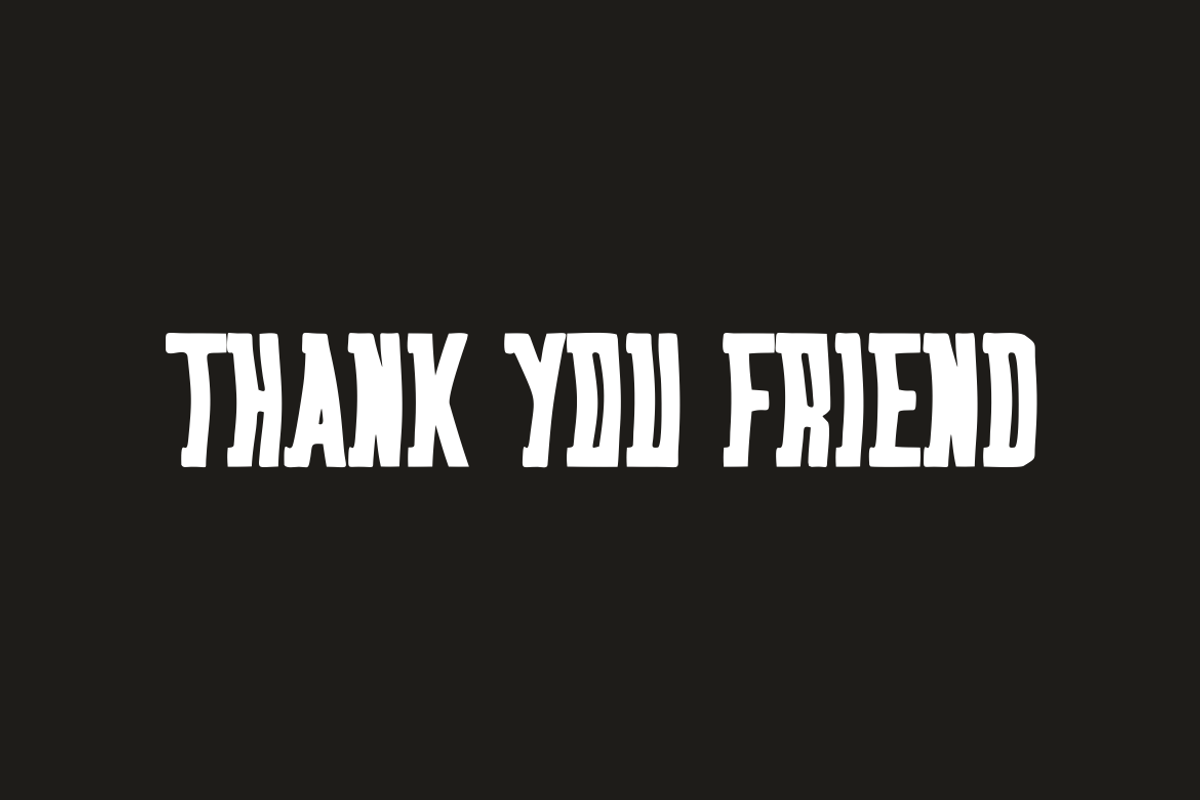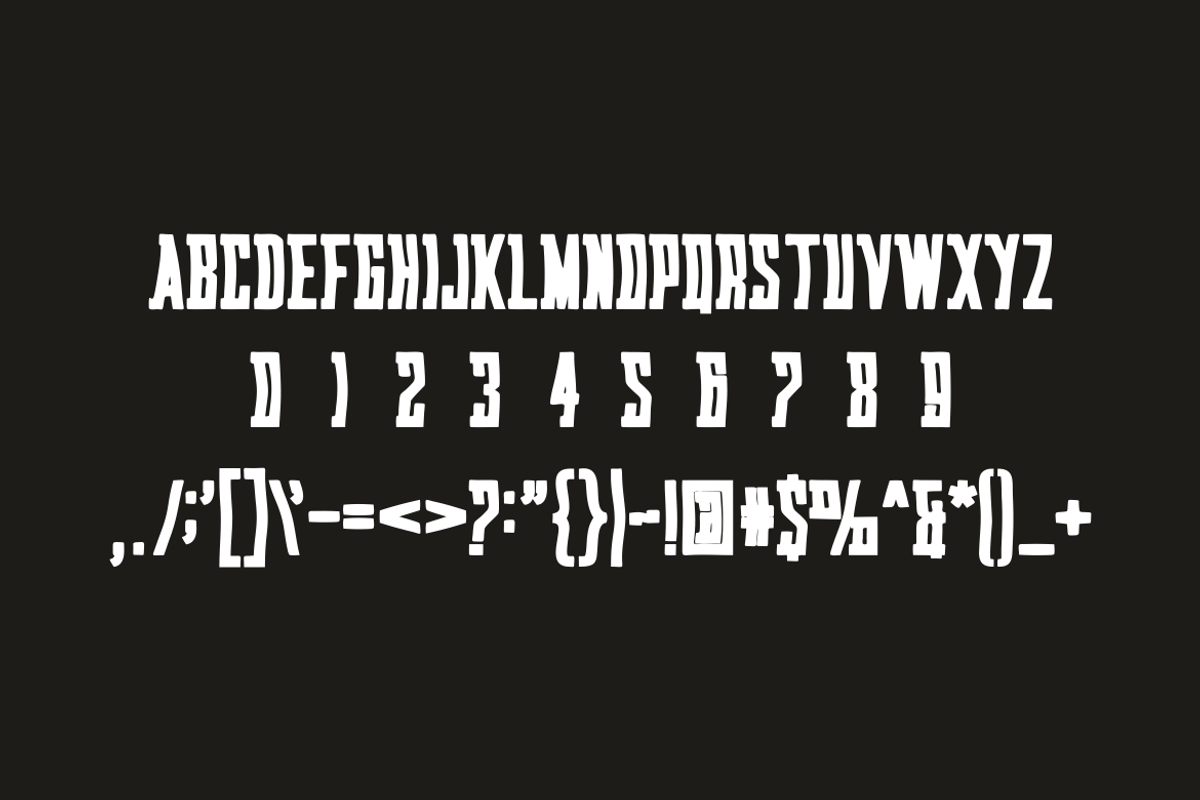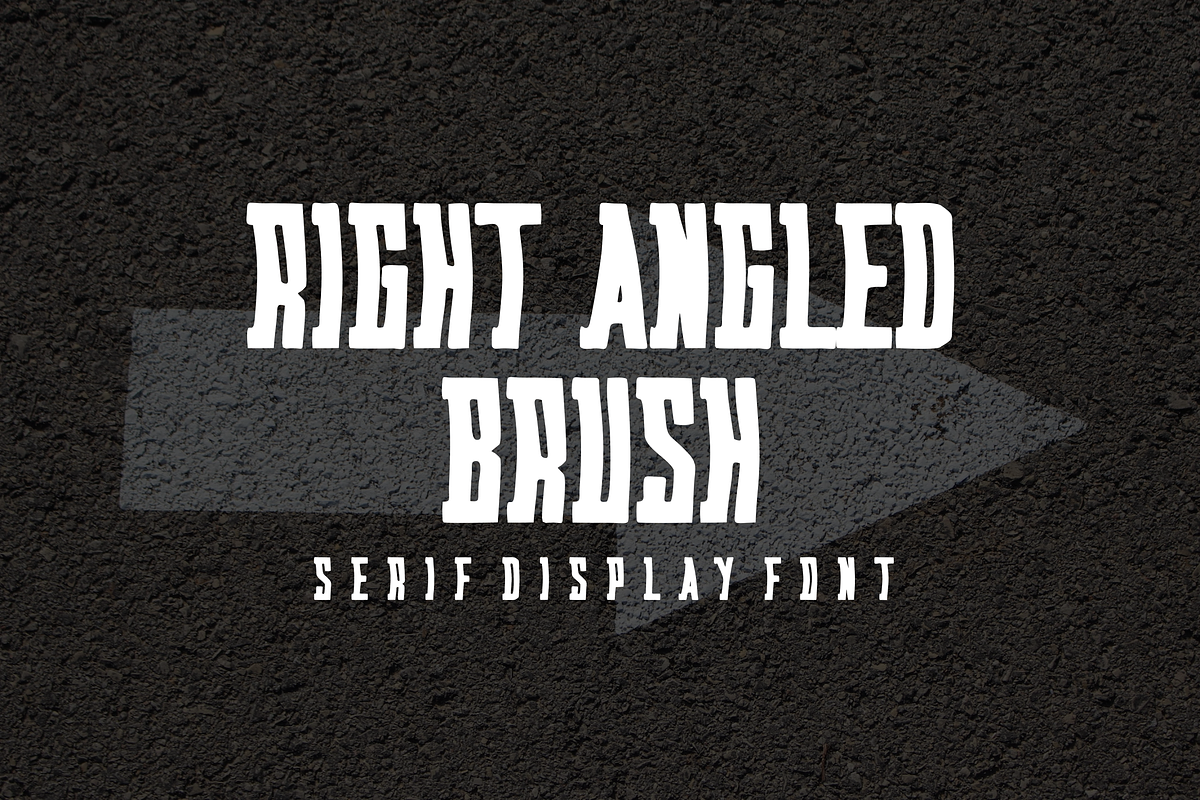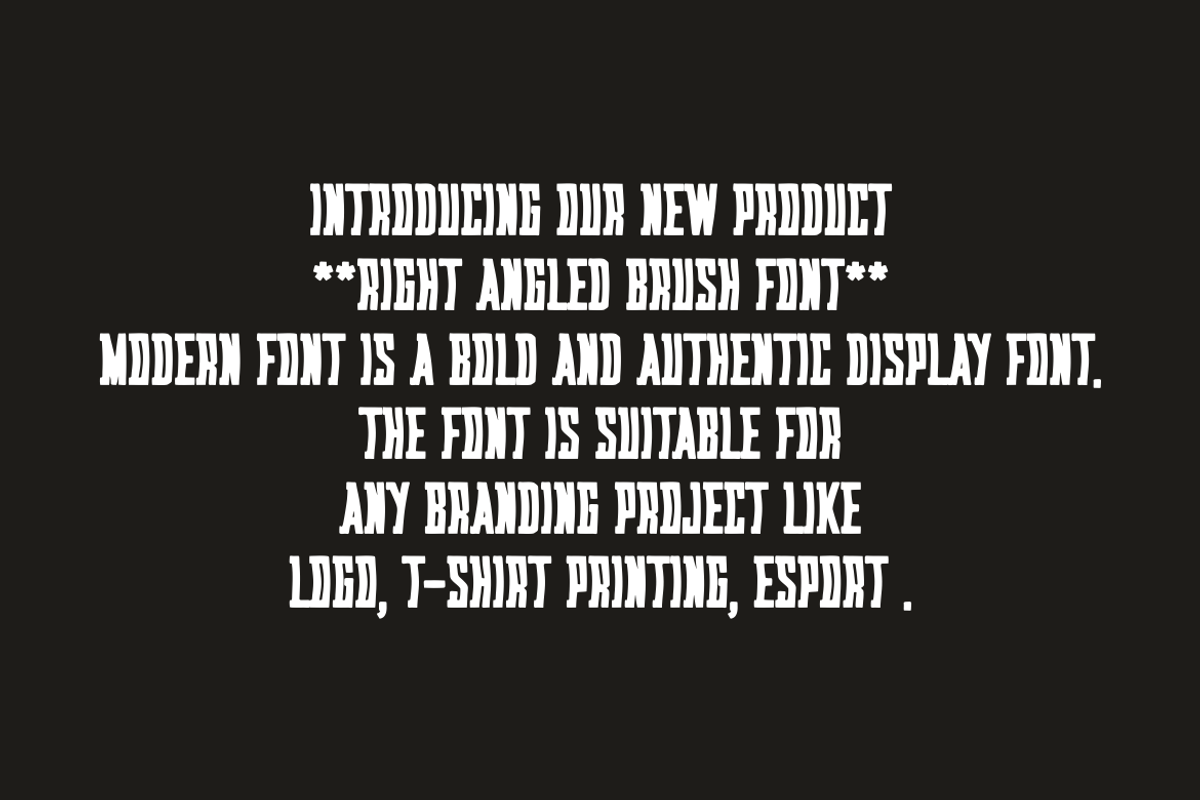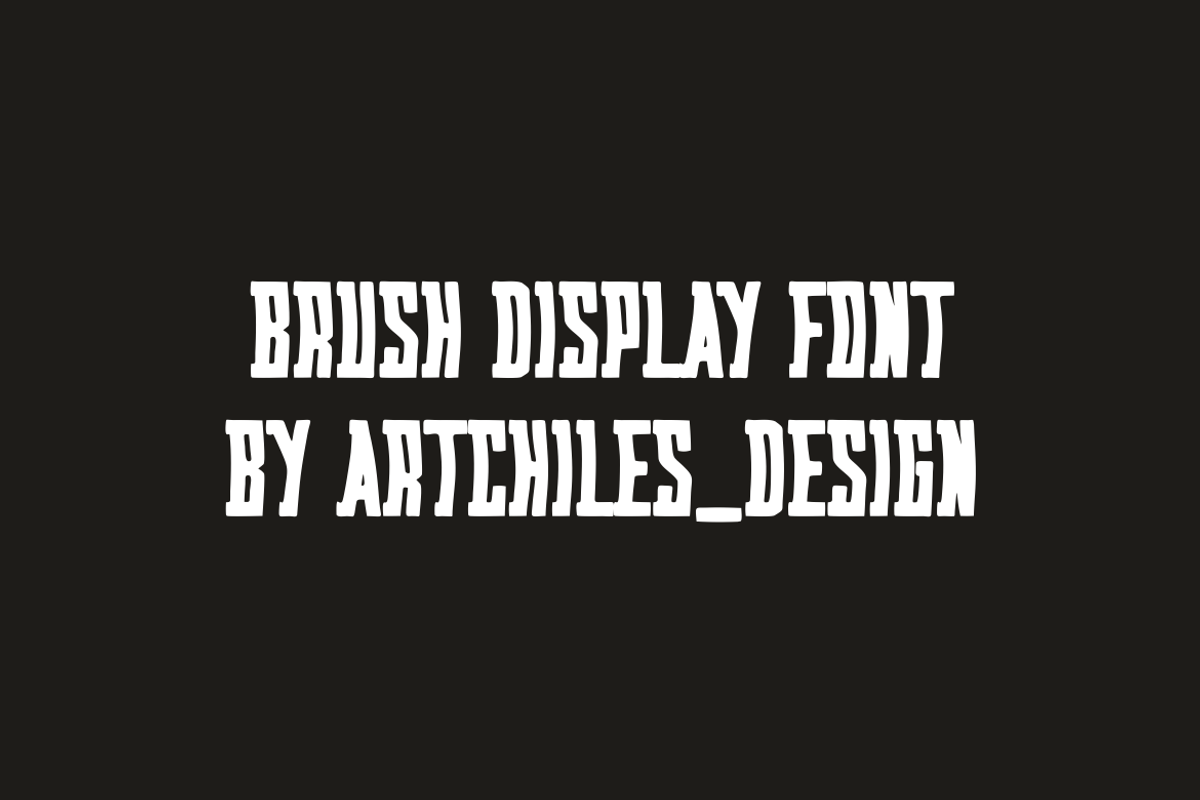
Right Angled Brush - Font
- Modern Font is a bold and authentic display font. The font is suitable for any branding project like logo, t-shirt printing,, and many more. outstanding in a wide range of contexts.